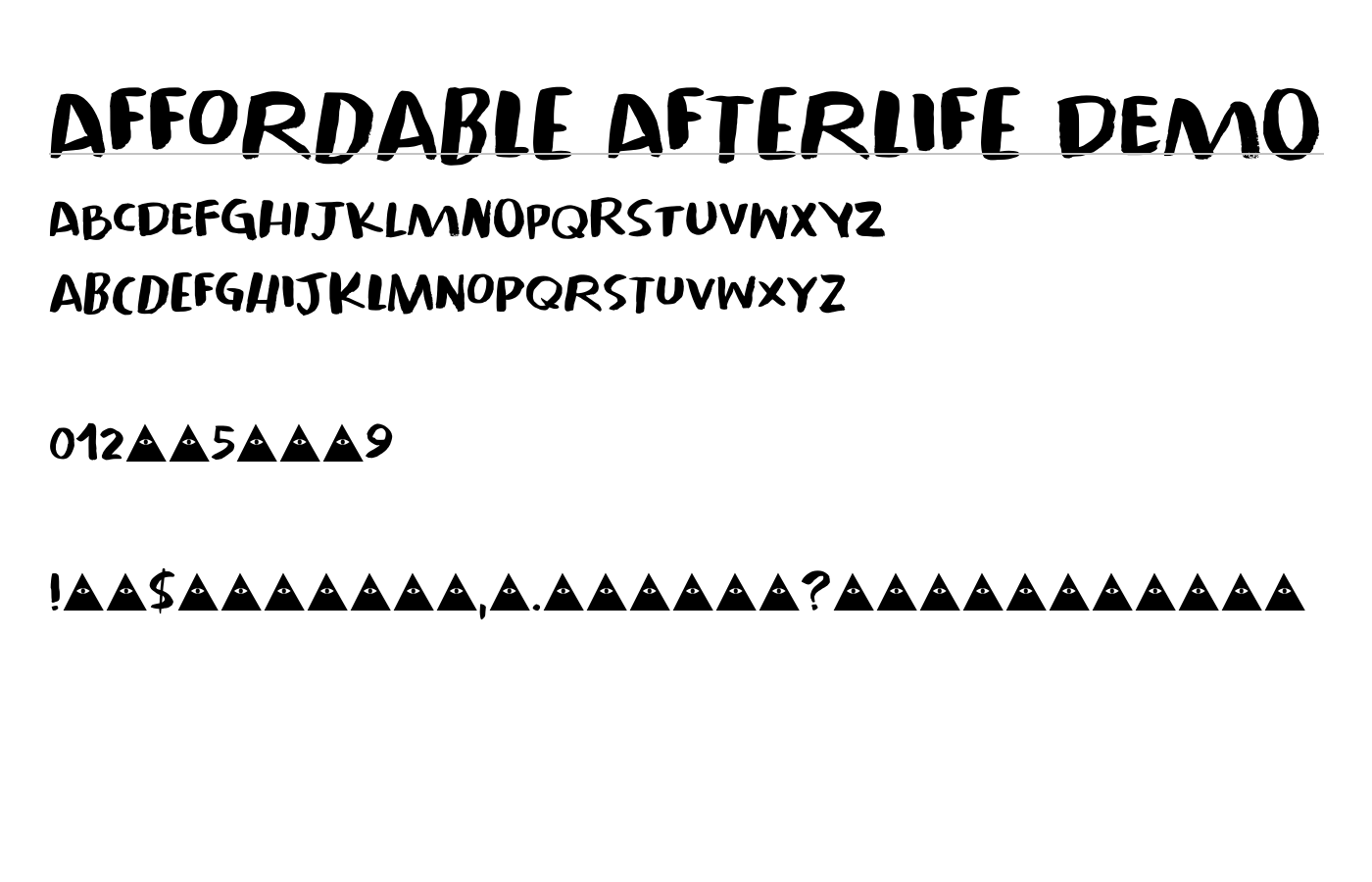
Affordable Afterlife DEMO is an expressive, hand-drawn sans serif font with a bold, slightly irregular style that gives a playful and edgy vibe. Its uneven strokes and quirky letterforms create a casual, artistic feeling, making it ideal for creative projects, youth-oriented branding, or eye-catching headlines that want to stand out with personality. This font works best where a unique, informal touch is needed to attract attention and convey originality.
Affordable Afterlife DEMO Font
About Affordable Afterlife DEMO Font
| Font family | Affordable Afterlife DEMO Font |